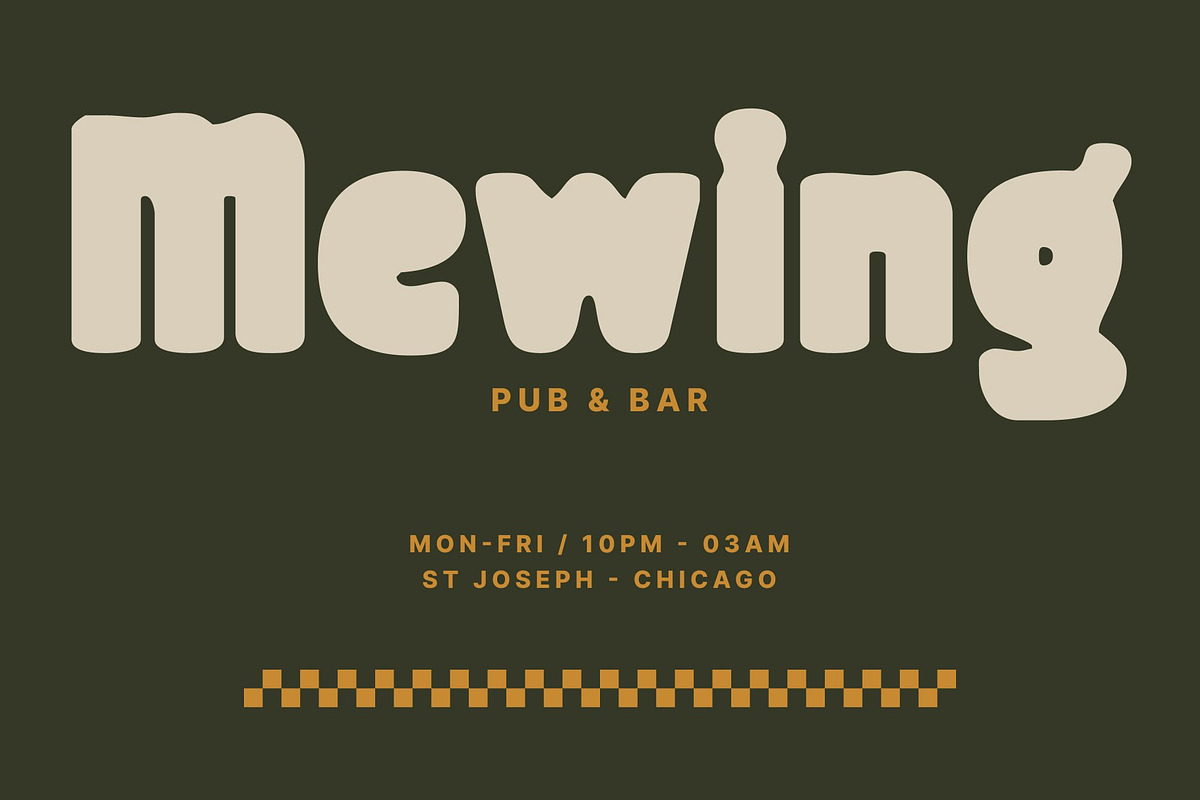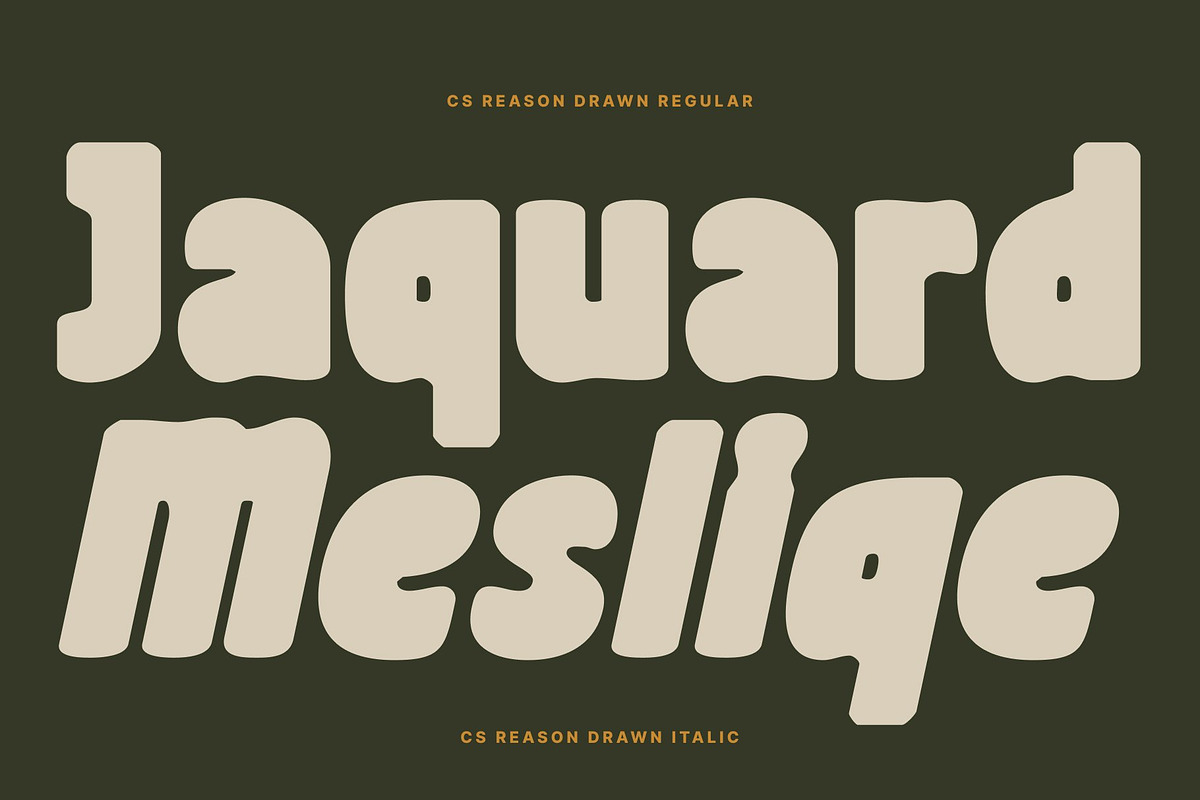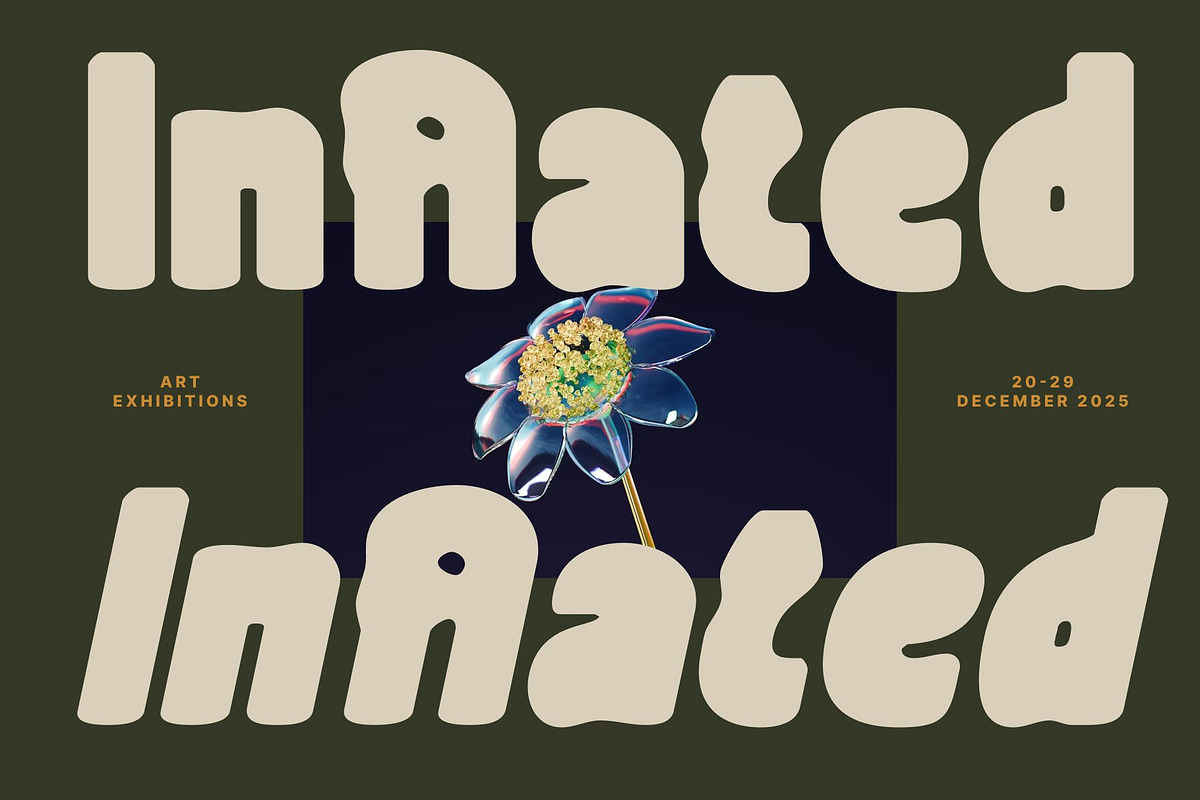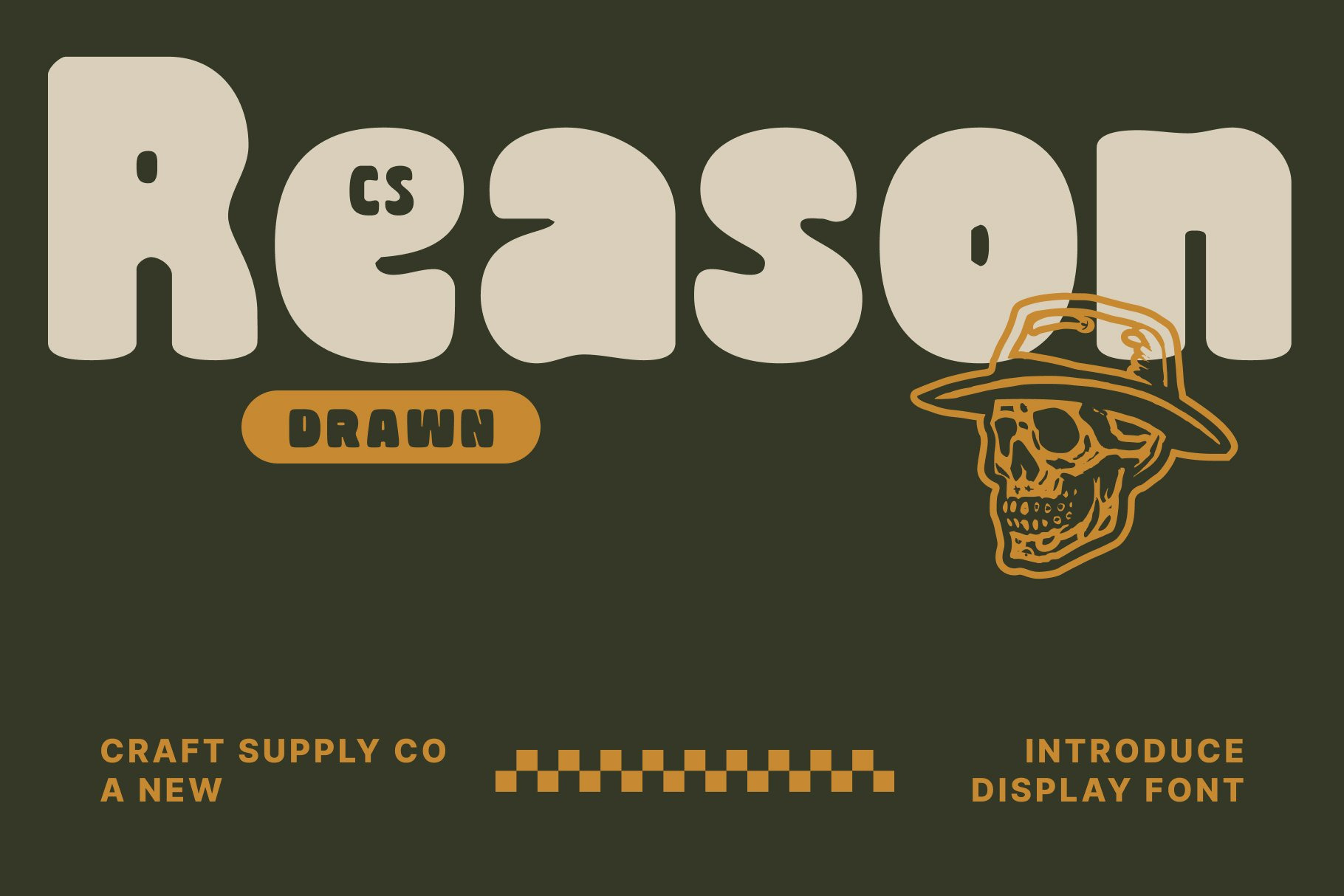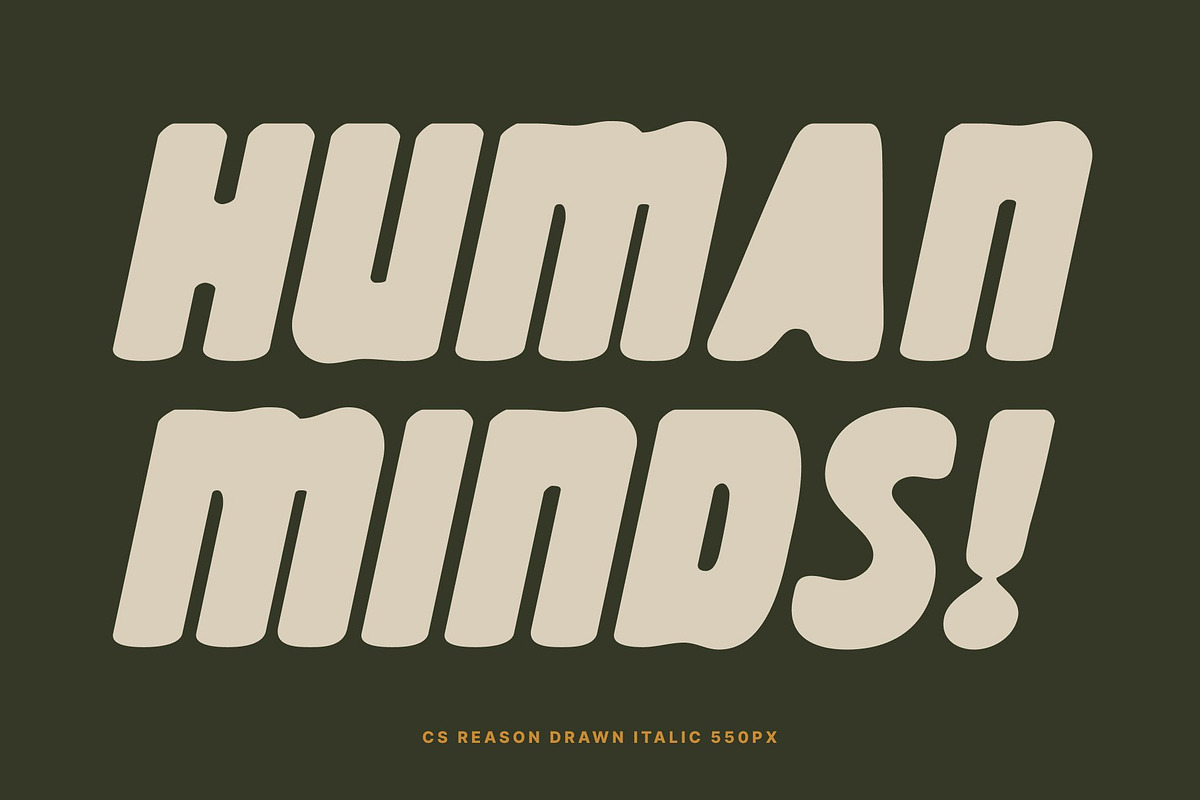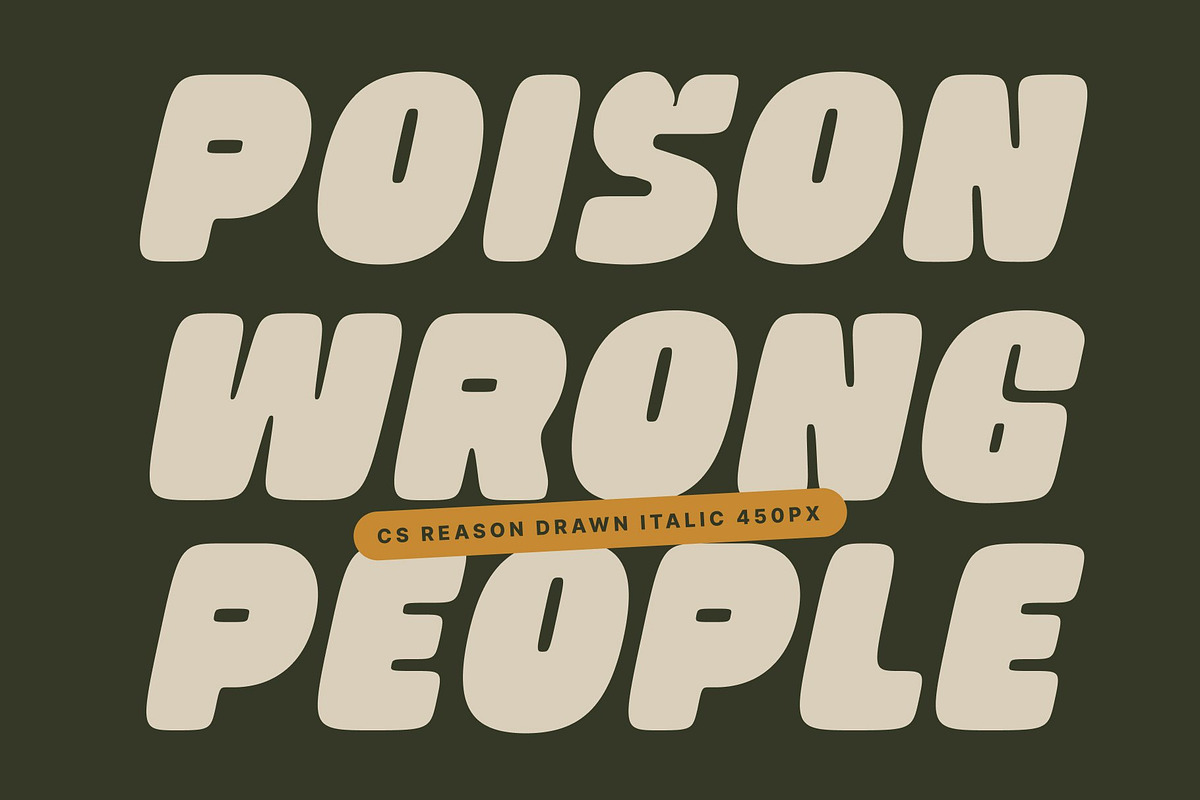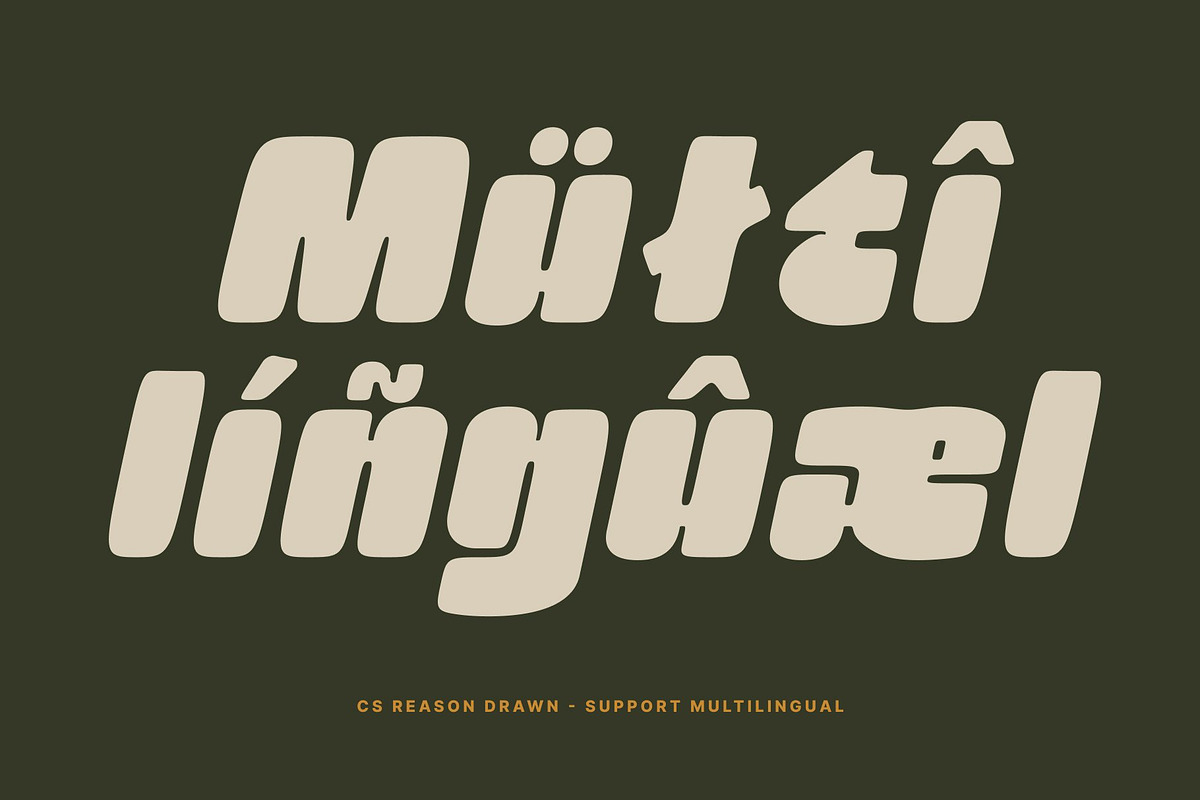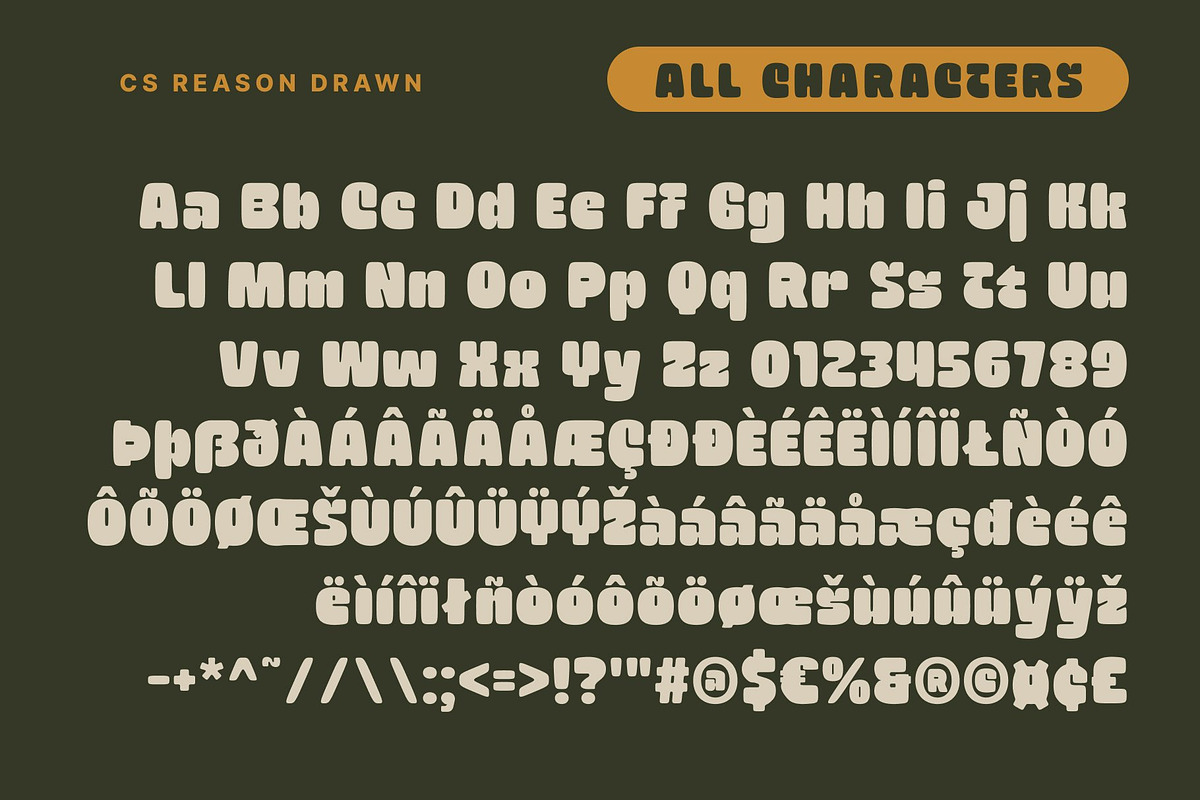
CS Reason Drawn – Bold Display Font
CS Reason Drawn – Bold Display Font with Expressive Hand-Drawn Texture
Bold Weight with Powerful Visual Presence This is a bold display font built to command attention through its striking weight and confident structure. Every letter carries strong visual impact, making your words stand out instantly. Its heavy forms bring authority and emphasis, allowing your designs to project clarity, strength, and unmistakable presence.
Hand-Drawn Effect for Authentic Character What sets this font apart is its expressive hand-drawn effect. Subtle textures soften the bold structure, adding a handcrafted warmth that elevates each character. This organic touch introduces personality and depth, giving the font a balanced feel polished enough for professional use, yet artistic enough for creative expression.
Perfect for Posters, Headlines, and Strong Branding With its commanding form, this font excels in posters, headlines, logos, packaging, and bold branding statements. Its substantial weight ensures that your text becomes a focal point, making it ideal for impactful layouts and standout visuals. Whether you’re announcing an event, branding a product, or creating expressive typography, this font brings undeniable force.
Ideal for Editorials, Creative Branding, and Digital Projects Beyond display work, this font adapts beautifully to editorial titles, digital interfaces, and creative projects seeking a blend of strength and artistry. Its combination of bold structure and textured detail creates a modern yet handcrafted aesthetic that feels both expressive and professional.
- CS Reason Drawn Regular
- CS Reason Drawn Italic